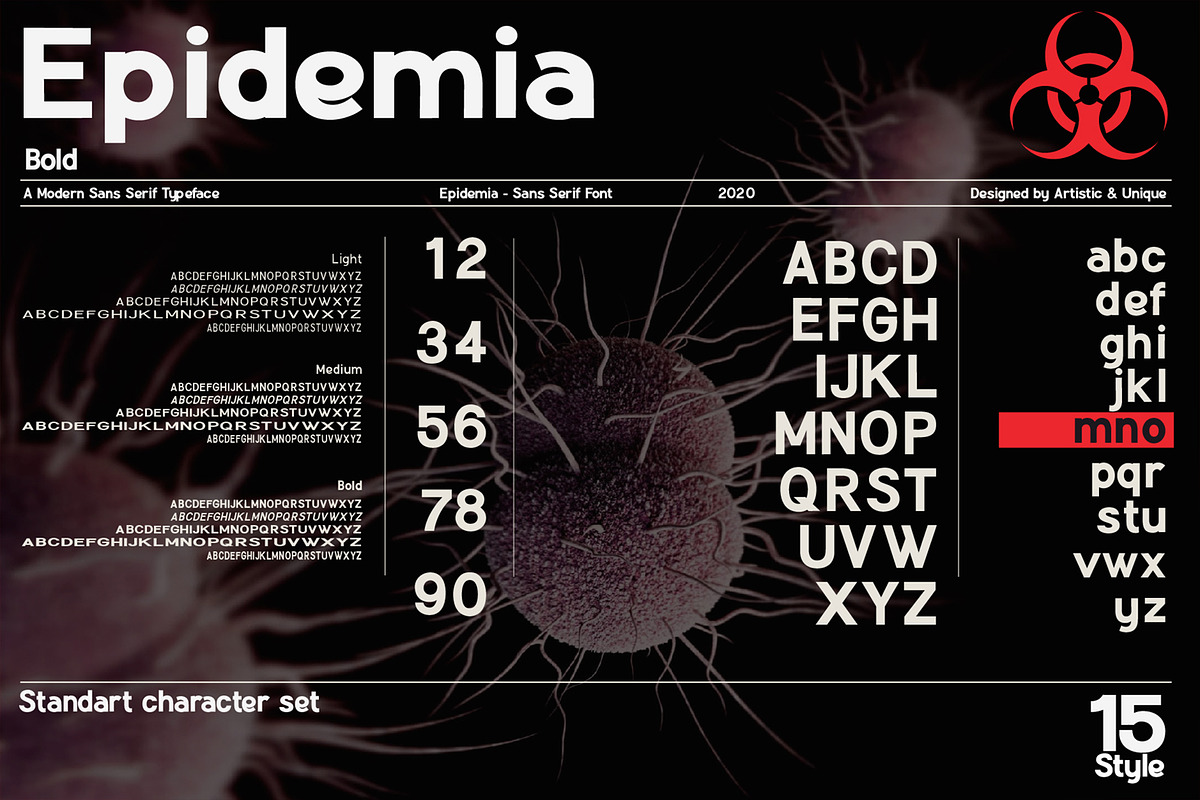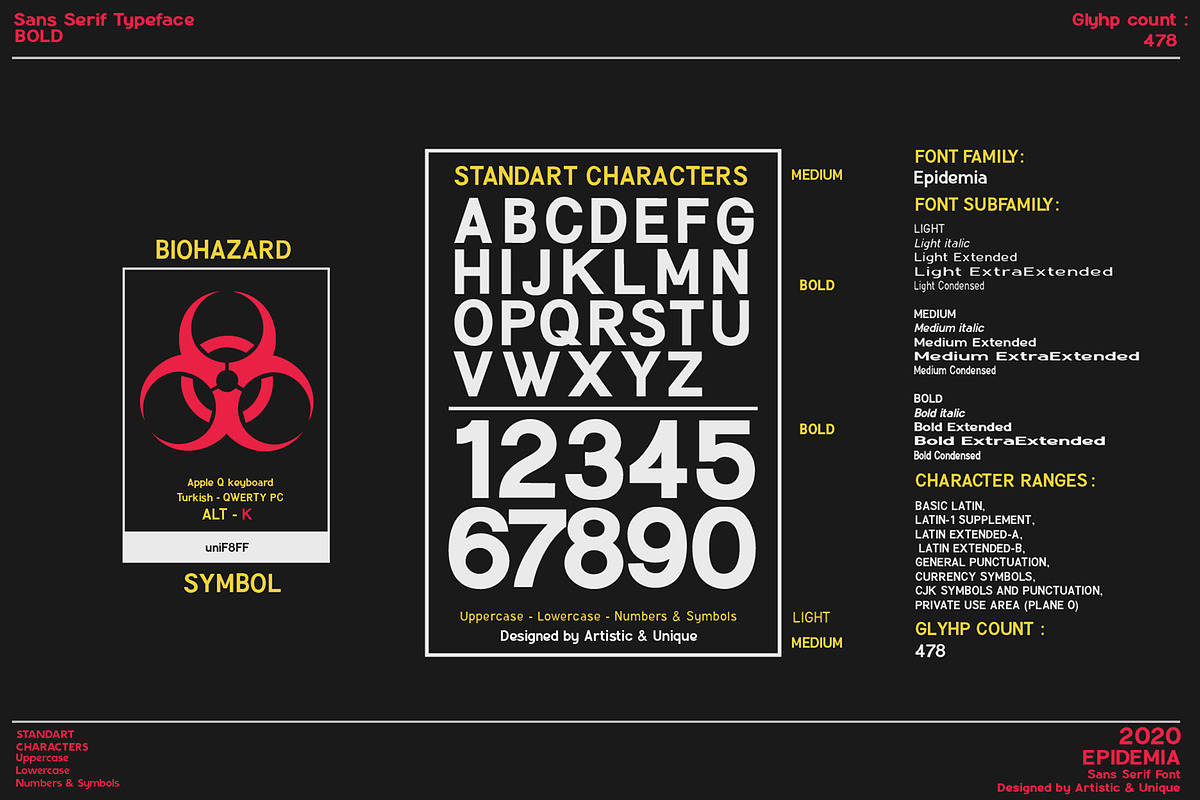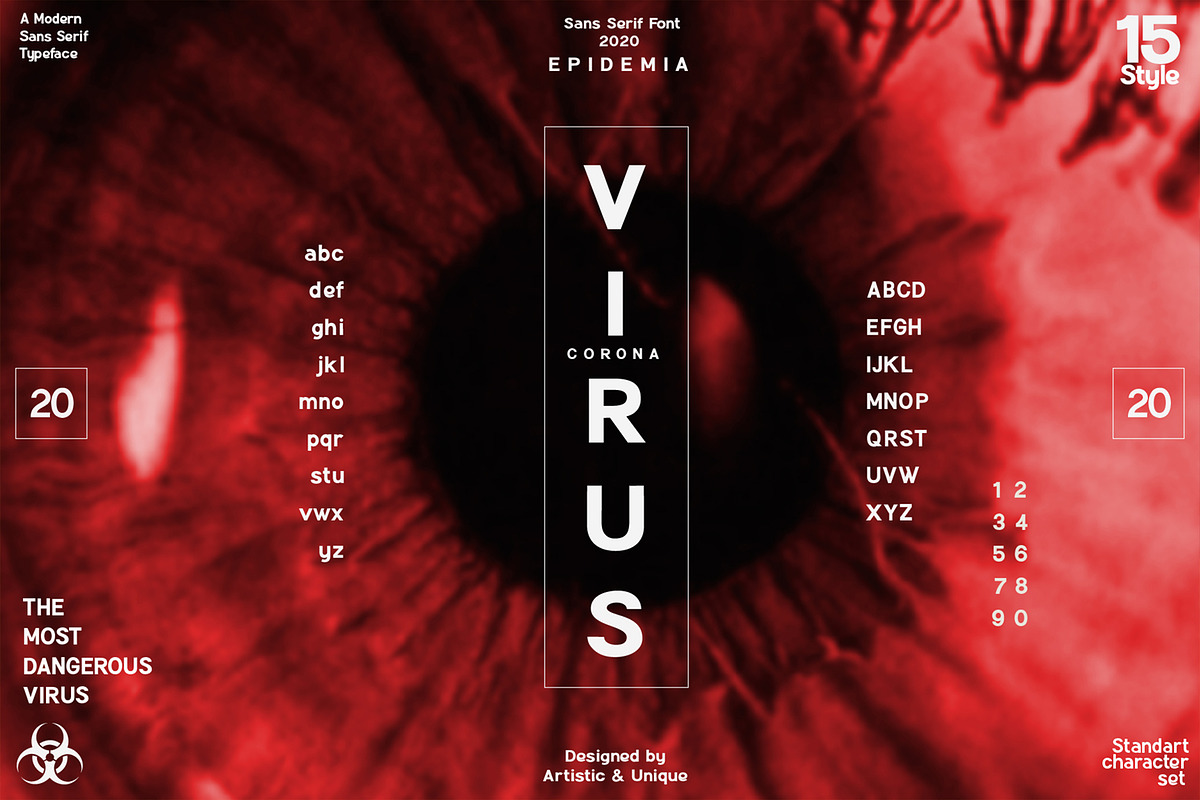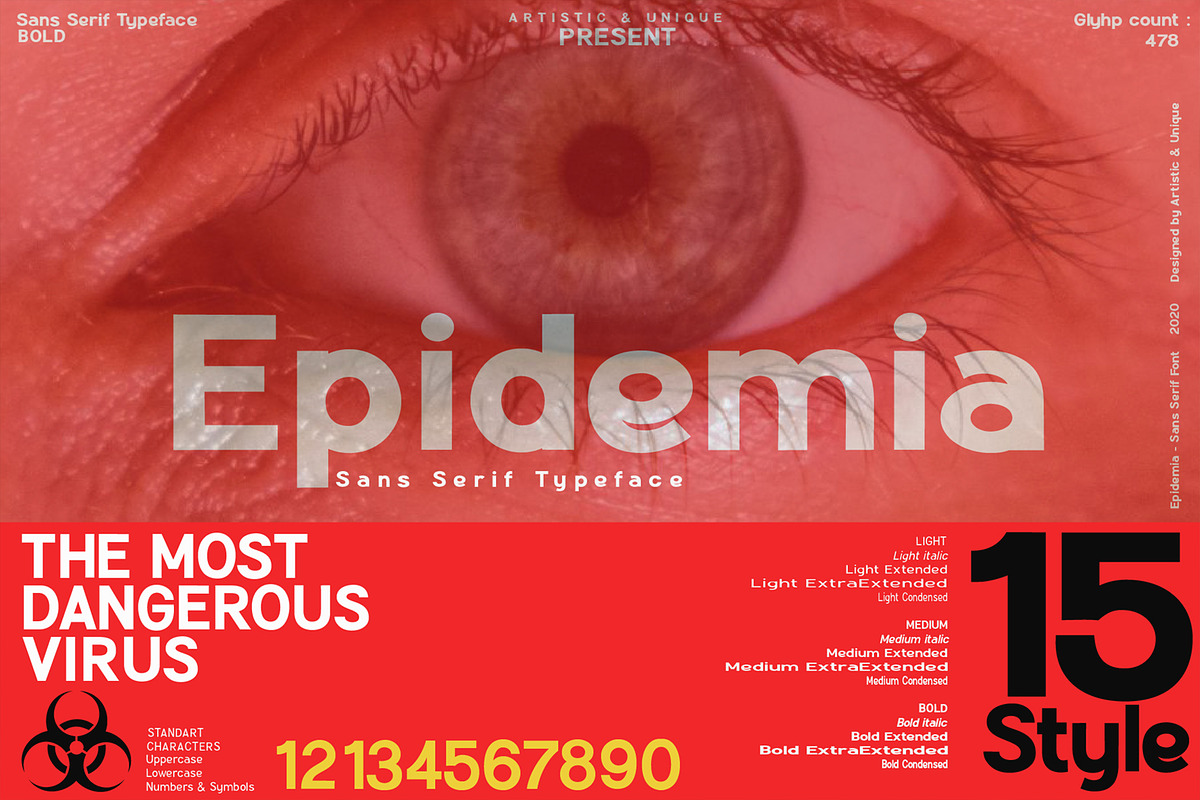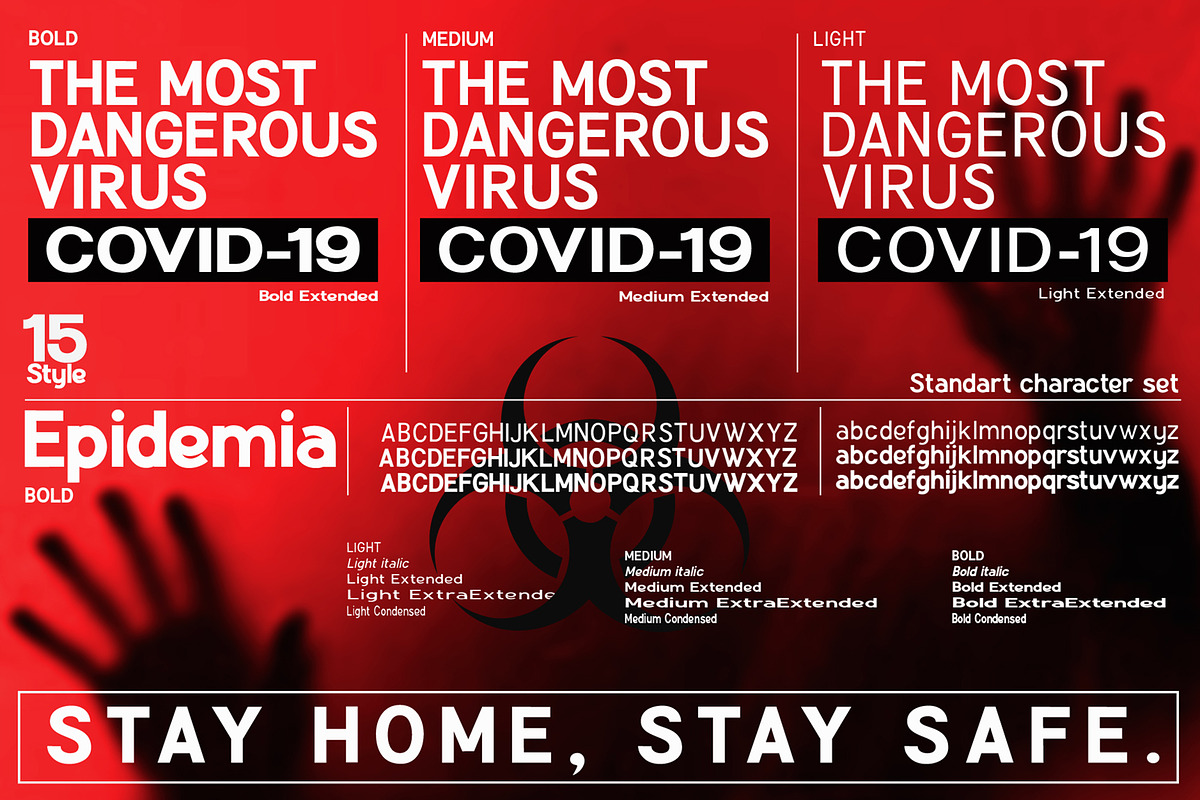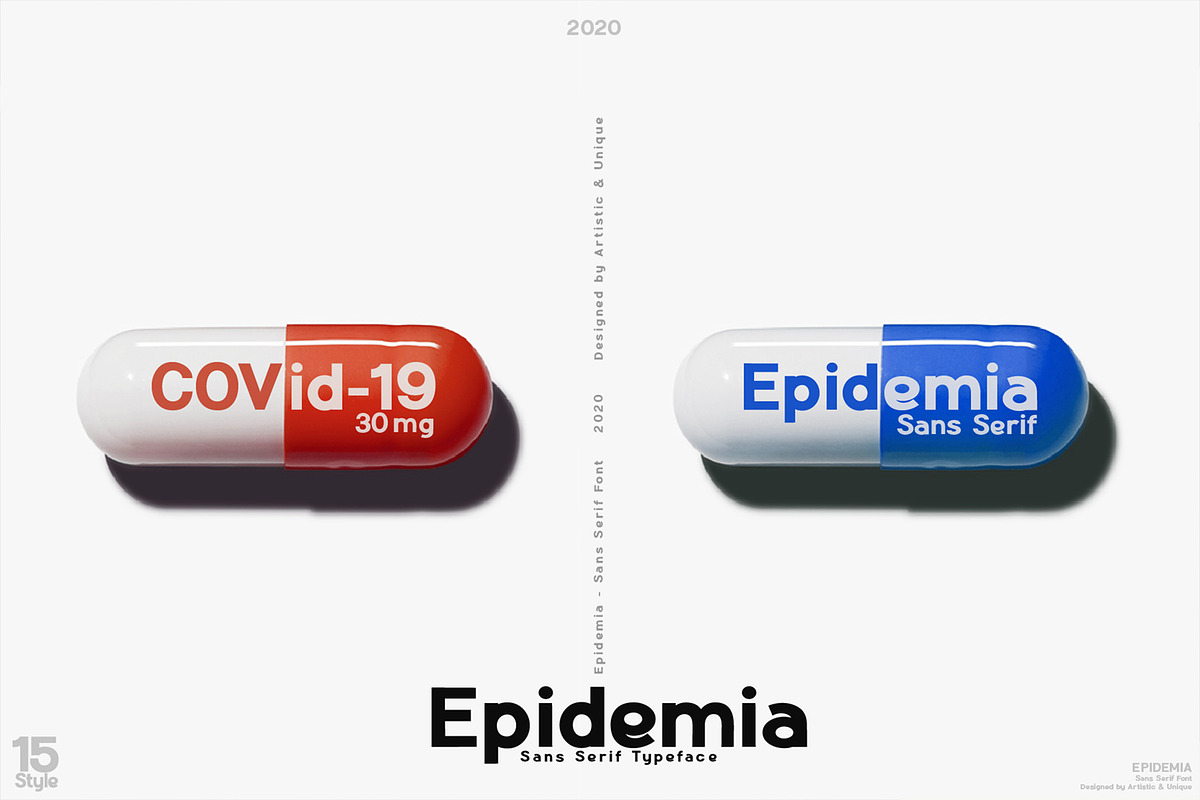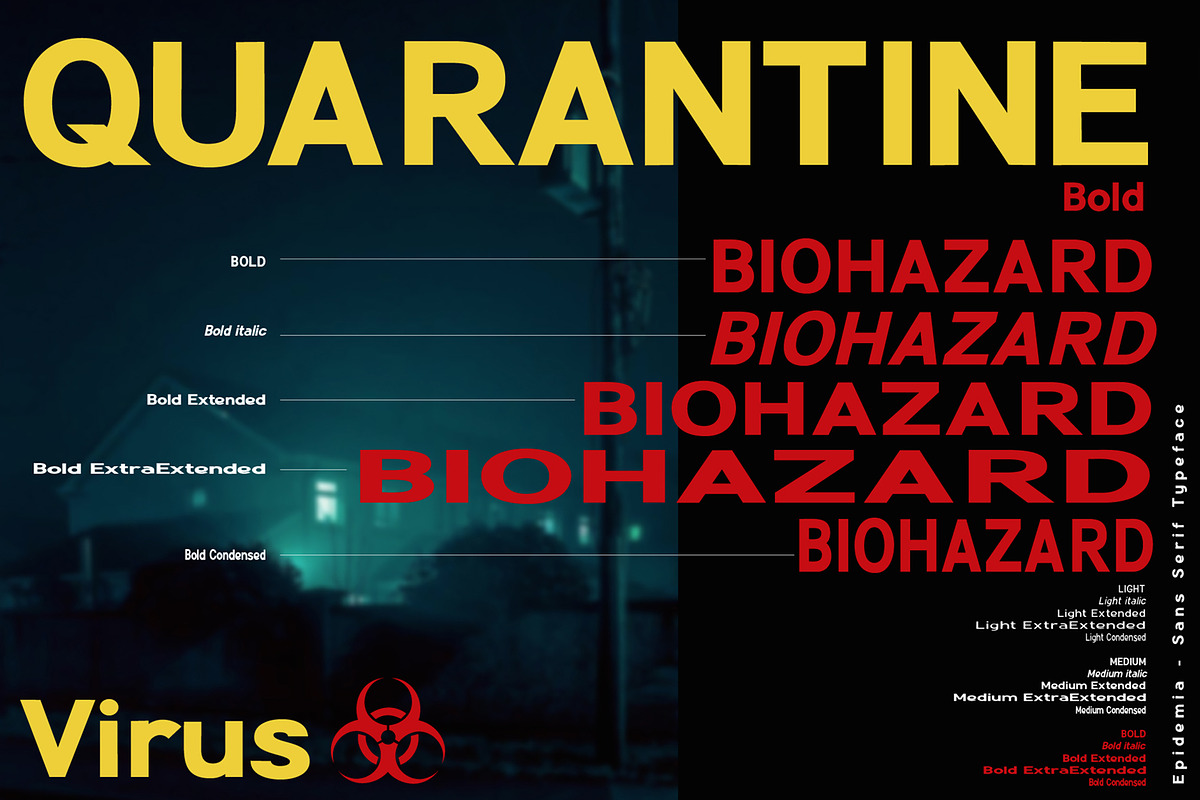
Epidemia - Sans Serif Font Family
Epidemia - Sans Serif font family - Multilingual (2020) -15 Style
Epidemia is a modern sans serif font. It offers rich solutions to your creative projects with its alternative versions. You can use Sans serif font feature in many areas easily. You can create your text with regular characters, and highlight bold characters and titles.
Logos, titles, science and technology fields, Medicine, Chemistry etc. It is absolutely perfect for Magazines, packaging design, books, branding and more! The Epidemia typeface is perfect for your design ideas.
Medium Extra Extended
With this font you can create your unique designs.
- FONT FAMILY:
- Epidemia
- FONT SUBFAMILY:
- LIGHT
- Light italic
- Light Extended
- Light Extra Extended
Why Epidemia - Sans Serif Font Family is worth a look
Epidemia - Sans Serif Font Family by Artistic & Unique fits naturally into Branding, posters, packaging, typography.